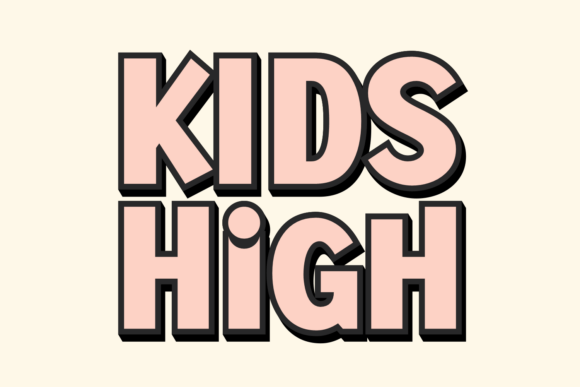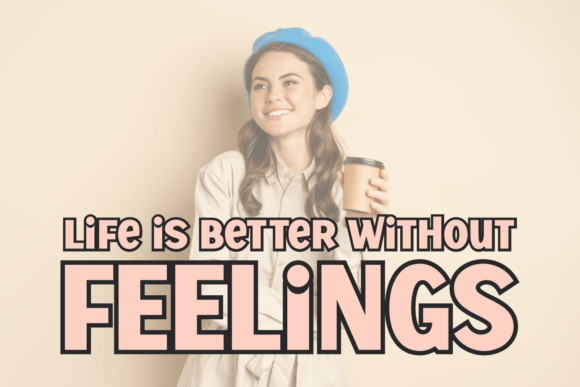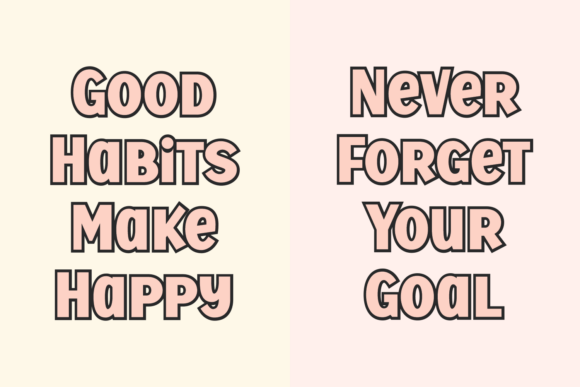
Unlocking Whimsy: The Magic of Kids High Font
Have you ever stumbled upon a font that sparks an idea and refuses to let go? For designers, this is a moment of pure bliss. It’s the moment when creativity flows, and the possibilities seem endless. For many, that moment came when they discovered the enchanting Kids High Font.
This delightful display font is more than just a design element – it’s a way to breathe life into your creations. With its sans serif style and pure simplicity, Kids High Font adds an idyllic touch to any project, from wedding invitations to merchandise. Its charm is unparalleled, making it a valuable addition to any designer’s toolkit.
Whether you’re a seasoned pro or a budding designer, Kids High Font is an ideal choice for bringing your unique vision to life. Its versatility and timeless appeal make it a must-have for anyone looking to add a touch of magic to their designs.
Kids High Font Key Features
- Font Family: A unique, playful sans-serif font designed specifically for children’s content.
- Font Size: Designed to be highly legible at various sizes, with optimal readability between 12-24 points.
- Resolution: Suitable for both screen and print use, with clear rendering at resolutions up to 300 DPI.
- Unique Characteristics: Includes a range of decorative and illustrative elements, such as speech bubbles, icons, and ornaments, to enhance visual engagement and storytelling.
- Language Support: Supports a wide range of languages, including Latin, Cyrillic, and Greek alphabets, making it suitable for international content.
Designer Review: Kids High Font
Overall, I think the Kids High Font has a lot of potential, but it also has some areas where it falls short. Let’s dive in and see what it’s got going for it.
- The font is highly customizable, with a range of options for color, size, and style. This makes it easy to tailor the font to fit your specific needs.
- The font is playful and fun, making it perfect for designs that need a bit of whimsy.
- The font is also highly legible, even at smaller sizes, which is a must for any font.
- The font is not suitable for formal or professional designs. It’s a bit too playful and casual for that.
- The font can be a bit too loud or overpowering if used in large quantities. It’s best to use it in moderation.
- The font lacks a bit of sophistication and elegance, which may be a turn-off for some designers.
Overall, I think the Kids High Font is a solid choice for playful, casual designs, but it may not be the best fit for more formal or professional projects.
Use Kids High Font for:
- Children’s book covers and illustrations.
- Party invitations and decorations.
- Education materials and worksheets.
Remember to use the font consistently throughout your design to create a cohesive look
Q: Can I customize the Kids High Font to fit my specific design needs?